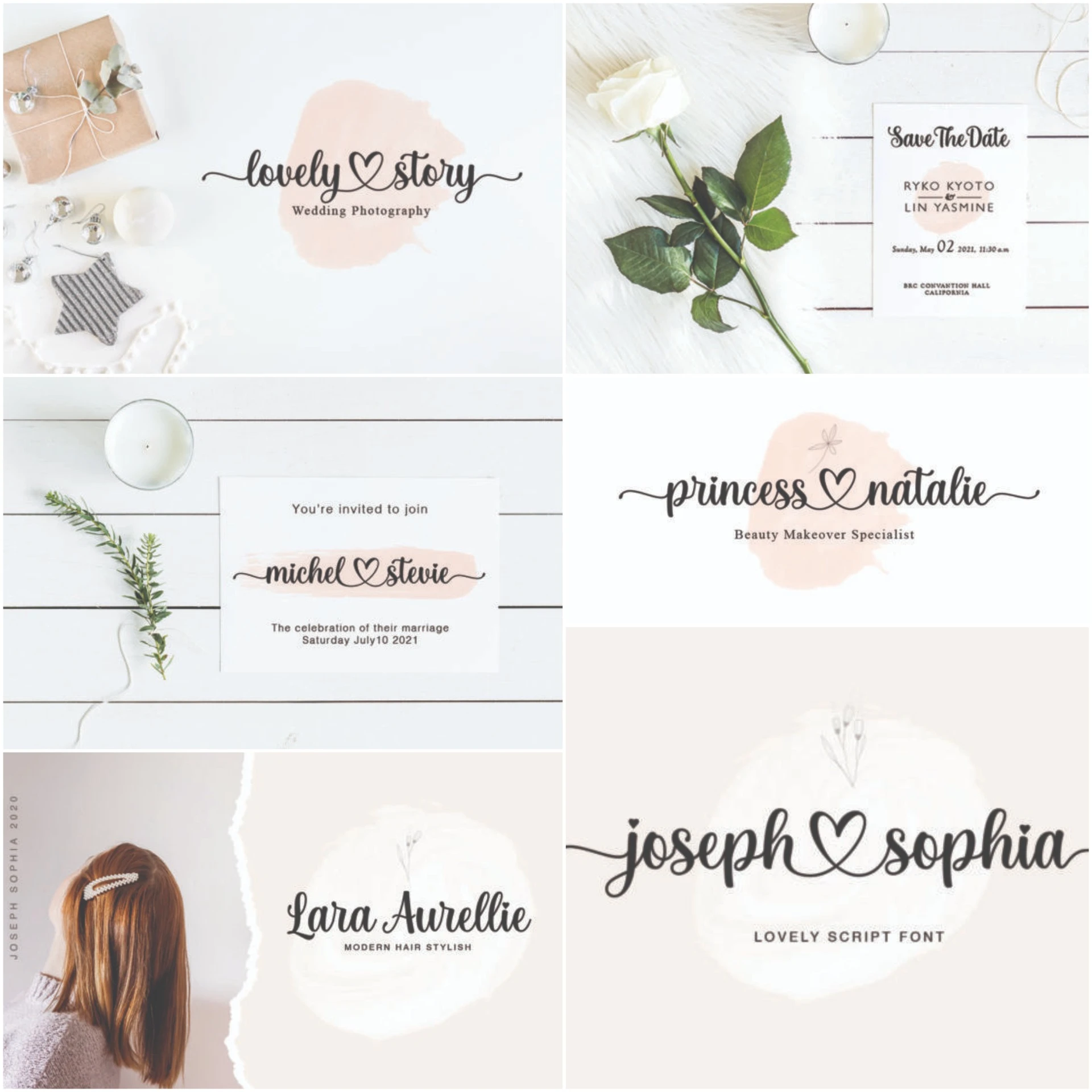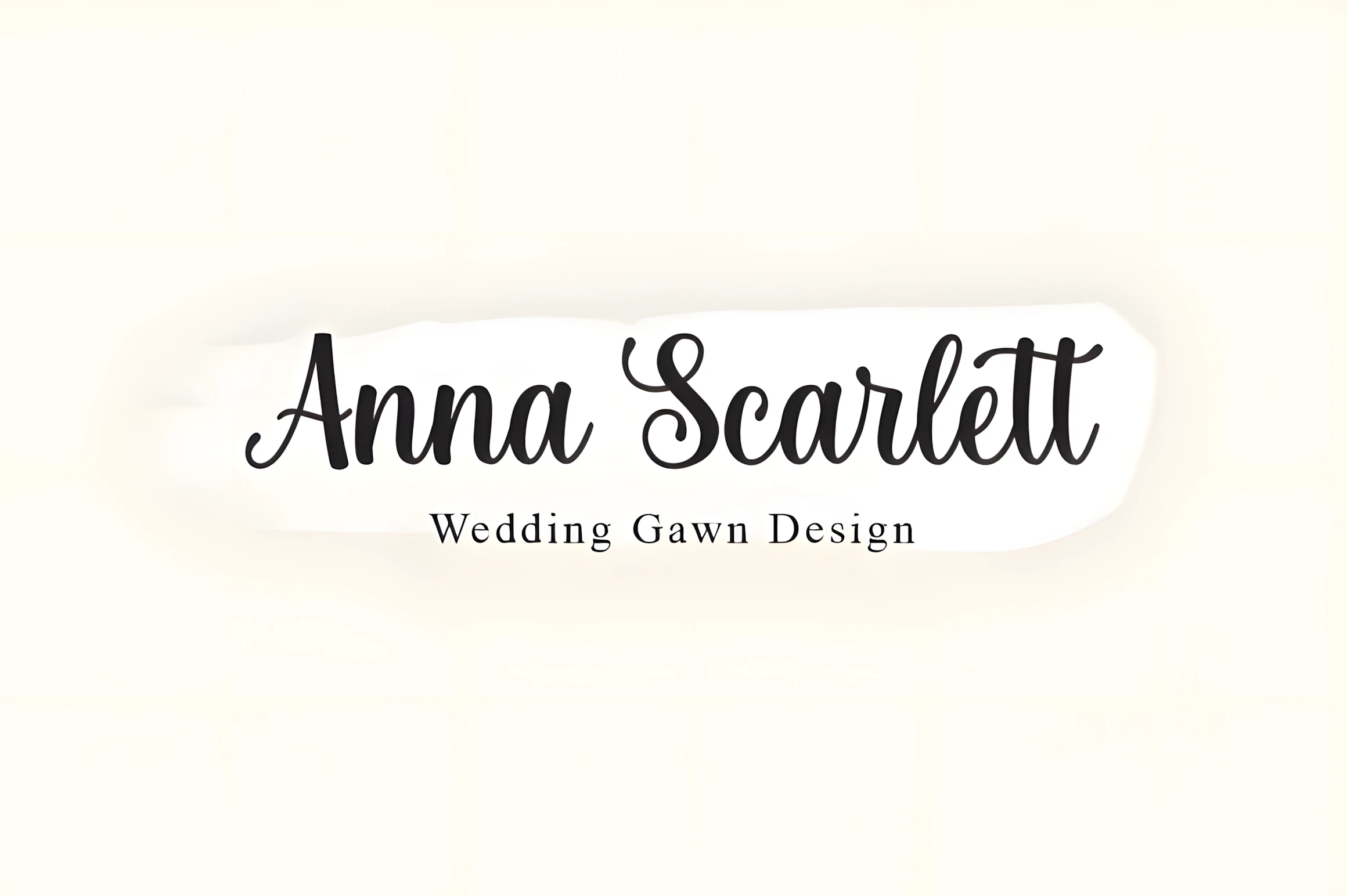
Joseph Sophia Font combines beauty with charm. It’s a handwritten script that feels romantic and refined. The letters flow naturally, like ink on paper, giving your work a polished, handwritten look that still feels warm and personal.
It works great as a wedding invitation font, adding intimacy and class to invitations, RSVP cards, and thank-you notes. Its appeal extends to business branding, where it works as a script font for logos, packaging, business cards, and visual identities that want a human touch.
Every curve is there for a reason. Every line has character. With its shifting baseline and smooth lines, this modern calligraphy font has striking glyphs and fancy alternates that turn regular text into eye-catching typography.